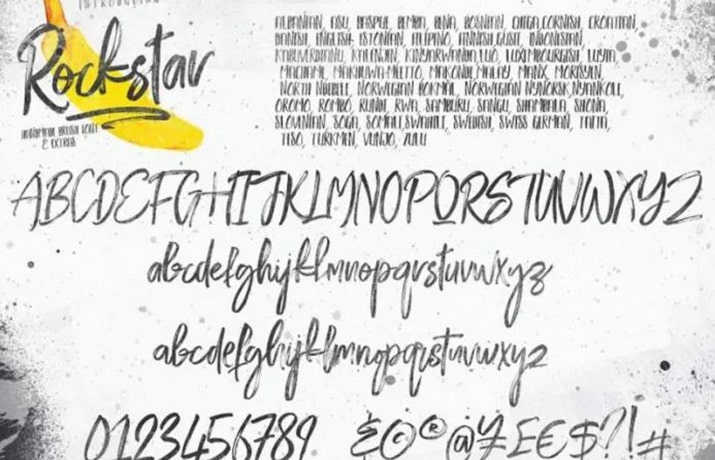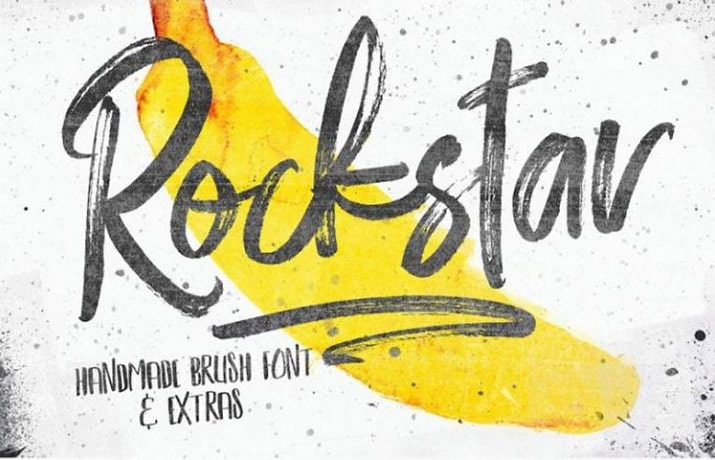
Rockstar Font is a dry brush typeface that is an excellent choice when you want to capture the look of brushstrokes in text. Use the font to create signatures, product design, and more.
This font is based on a completely new and beautiful handwritten expression, which allows you to turn different types into interesting and wonderful works.
An irregular and lettered shape adds a real human touch to things and is accompanied by lots of loving details. Fonts stay in memory when you look at them and are perfect for displaying text.
You can see the texture of this typeface in the images that we attach here to get an idea of how your text content will look after using this excellent fine font.
| Style: | Brush, Script, Handwritten |
The hand letter brush font will add a touch of elegance to any fashion magazines, news headlines, shopping bags, magazines, shopping bags, stationery, cosmetics, printing on cards, tattoos, special quotes, special event cards, flyers, titles, etc.
This typeface comes in a single regular style that possesses True Type features. This font contains upper case & lower case characters, numbers, glyphs, and punctuation marks.